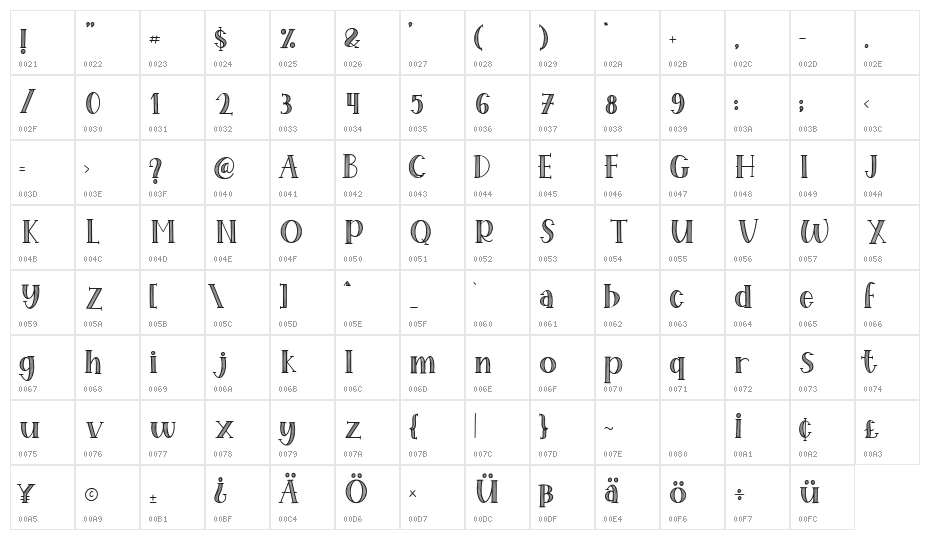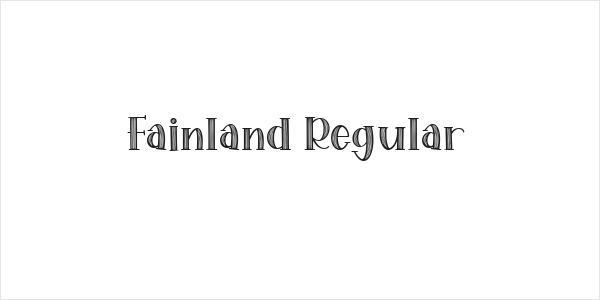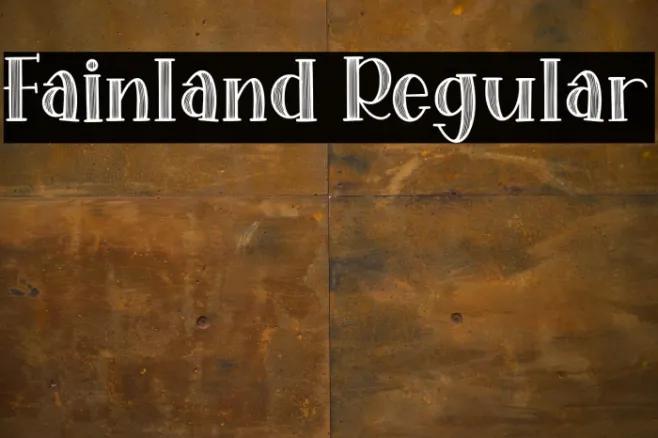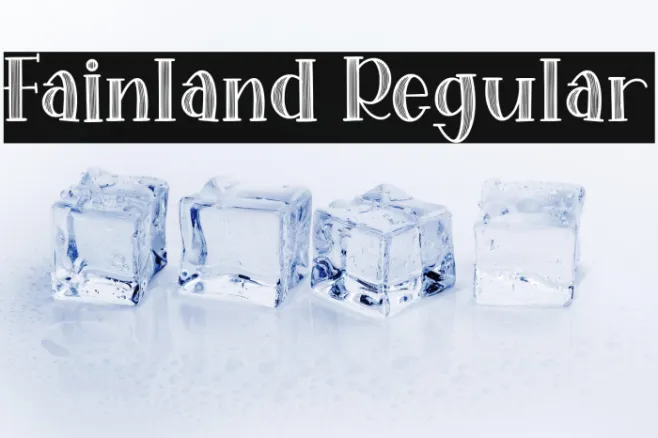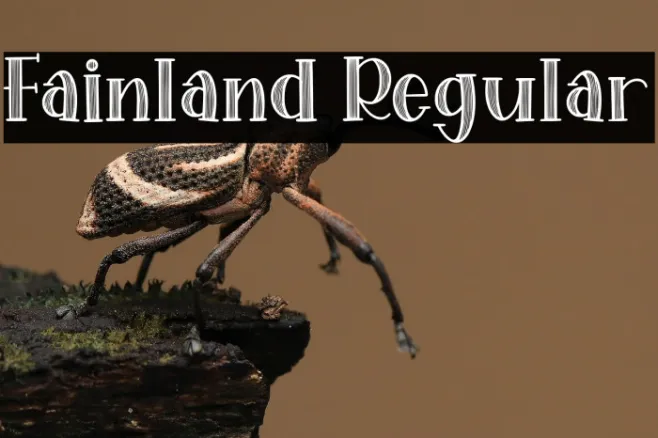
Fainland Regular Font
Fainland Regular Description
This font features a unique decorative style with a hand-drawn appearance. The characters are embellished with vertical lines that add texture and depth, giving it a whimsical and artistic flair. The uppercase letters are bold and commanding, while the lowercase letters maintain a playful and elegant look. The numbers and special characters follow the same decorative theme, making the font cohesive and visually interesting. The overall design is both modern and vintage, suitable for creative projects that require a distinctive and eye-catching typeface.
| Proposed Projects | Ideal for greeting cards, posters, artistic branding, and creative invitations. |